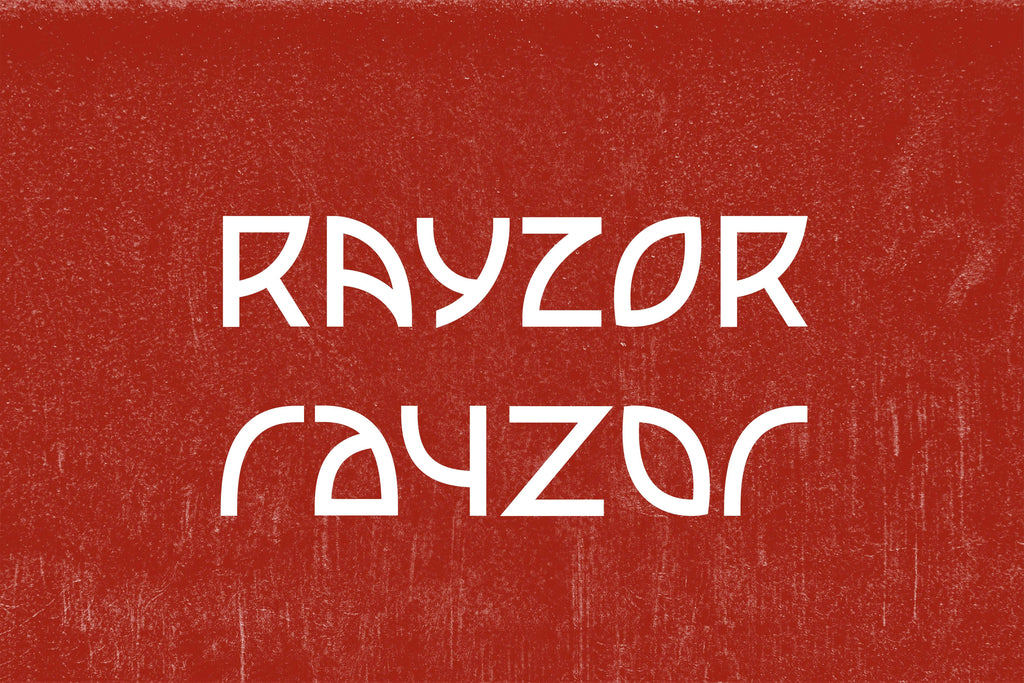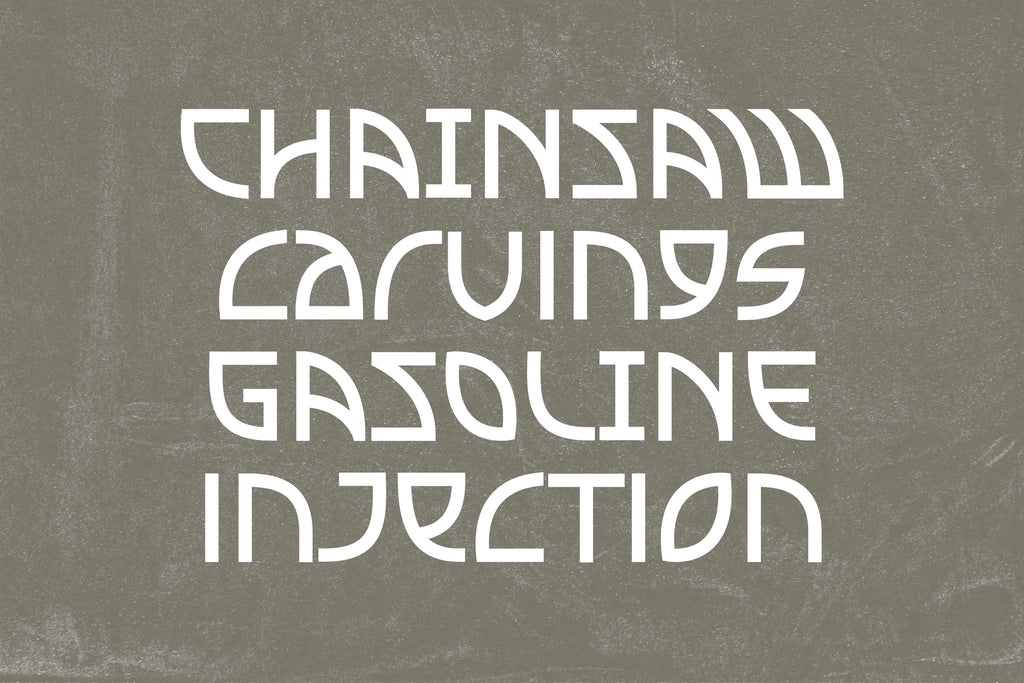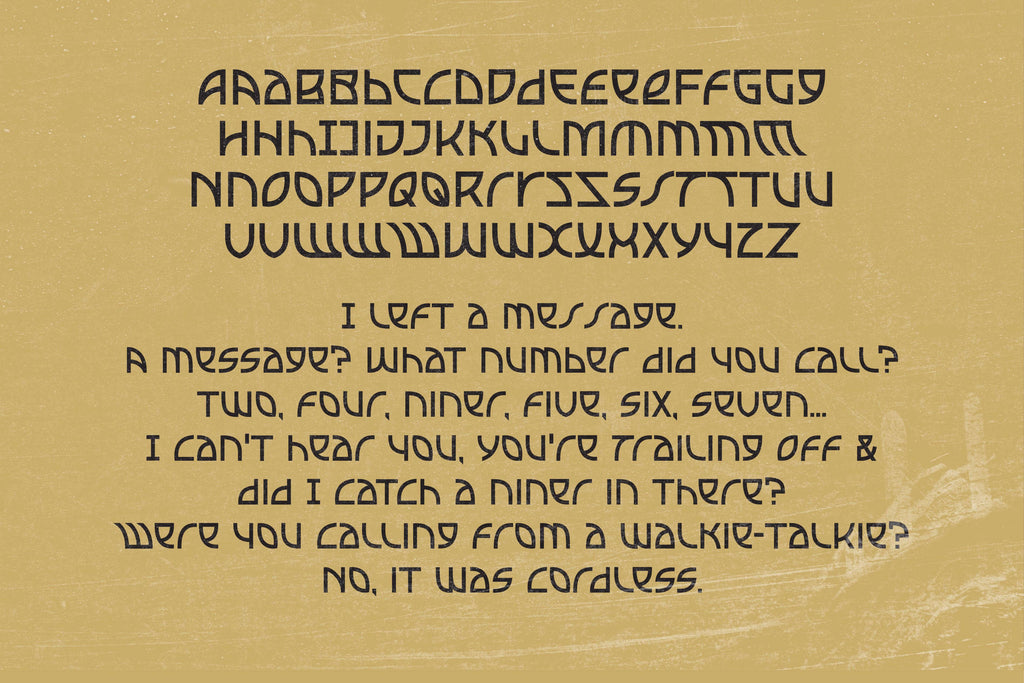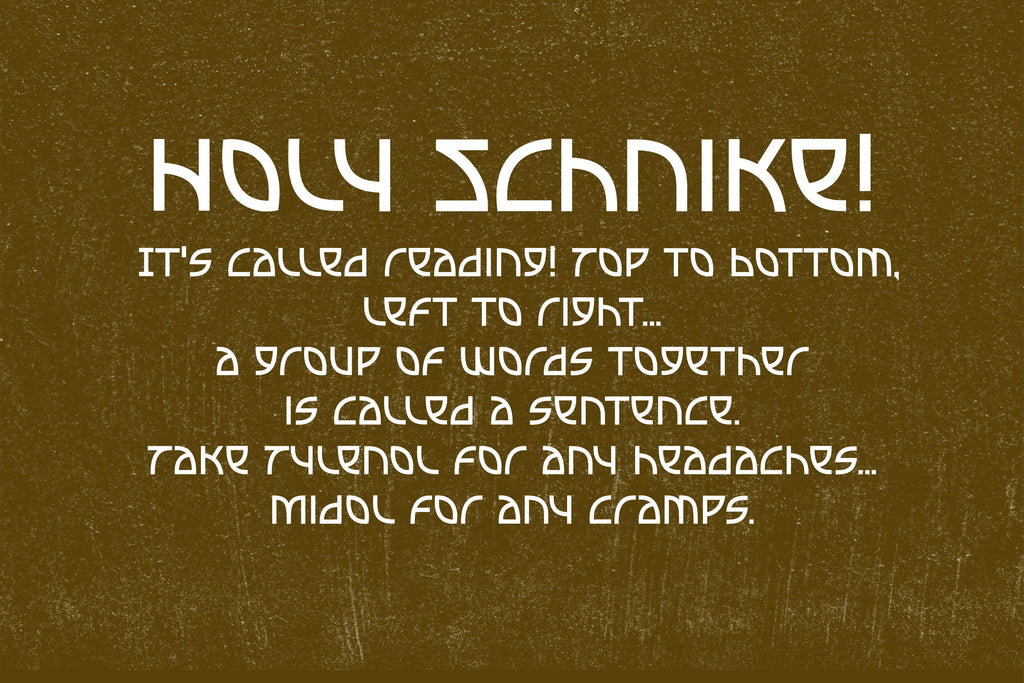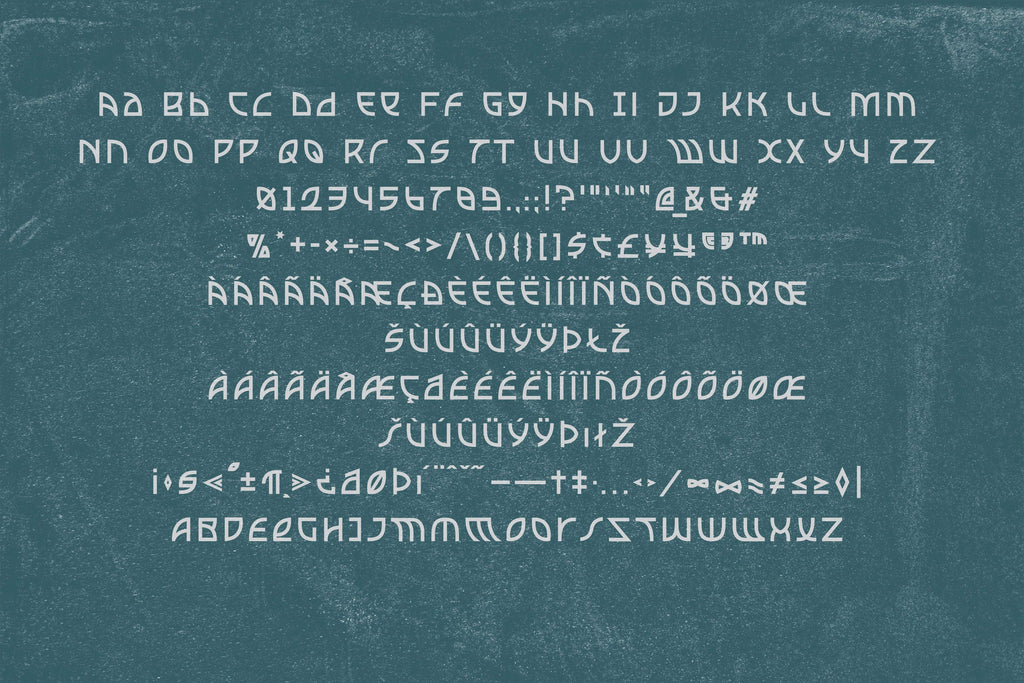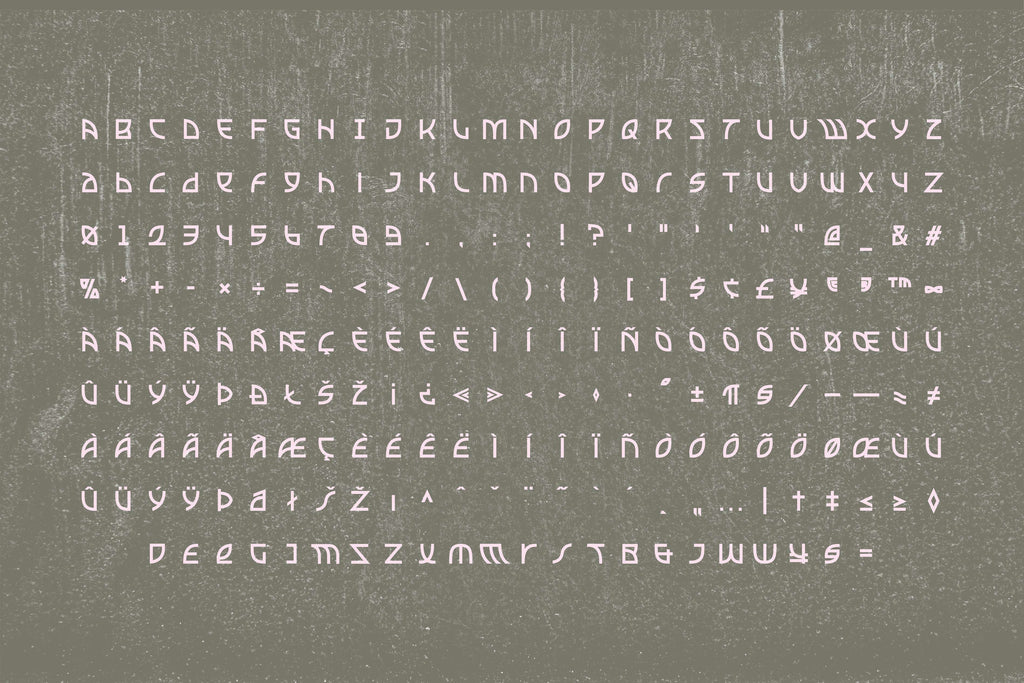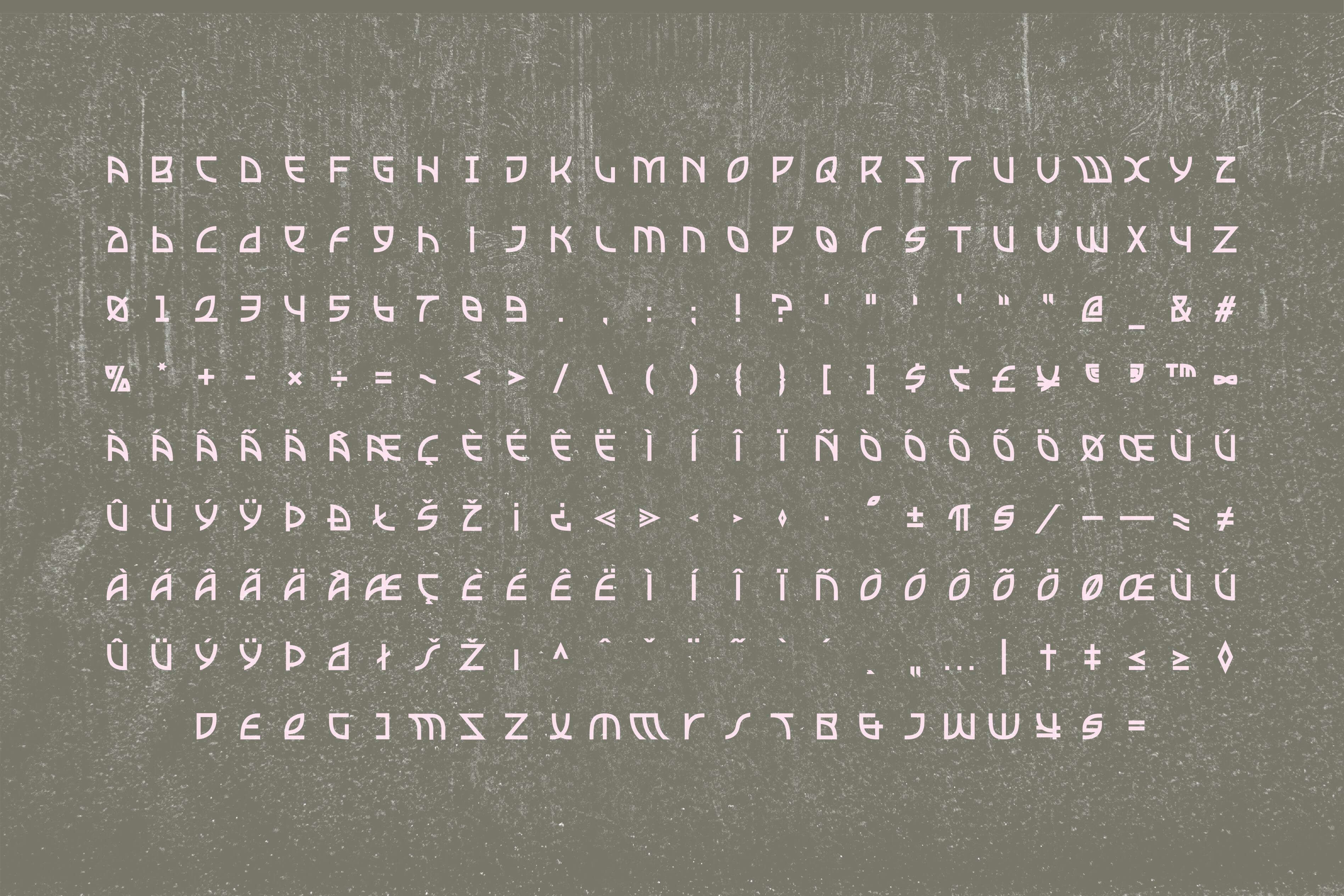
Rayzor Typeface
Rayzor is a sharp-edged, industrial display typeface born from real-world craft. The project began in 2015 during Wood Badge training, when a fellow Bear Patrol member started creating chainsaw carvings and needed a logo to promote his work. The custom lettering developed for that logo became the foundation for this typeface.
The letterforms are angular, precise, and assertive—evoking cut steel, blades, and mechanical forms while maintaining strong legibility. With 230 glyphs, 24 alternate characters, and full multilingual support, Rayzor offers flexibility for bold layouts, custom wordmarks, and expressive typographic systems.
Designed for designers who want edge without chaos, Rayzor is ideal for logos, posters, apparel, packaging, signage, and any project that needs a tough, crafted aesthetic with modern control.